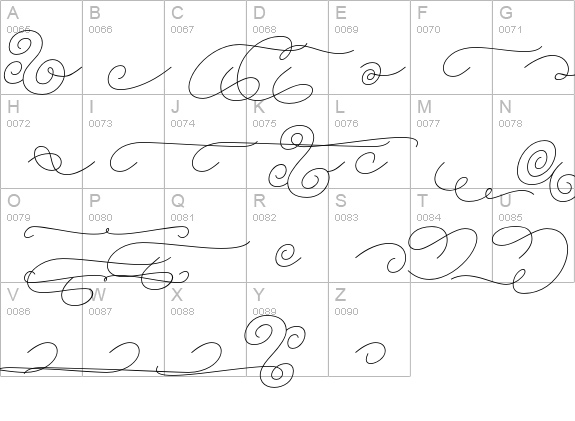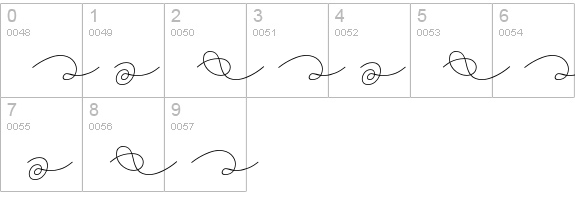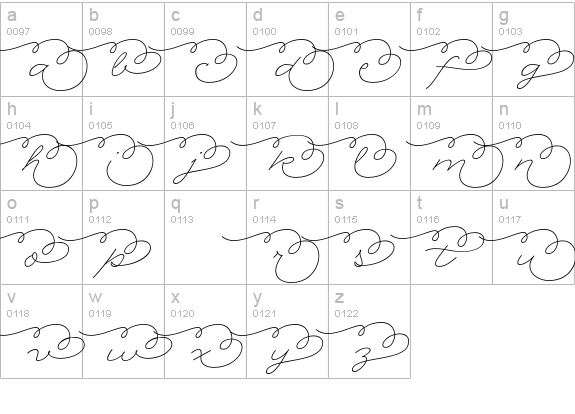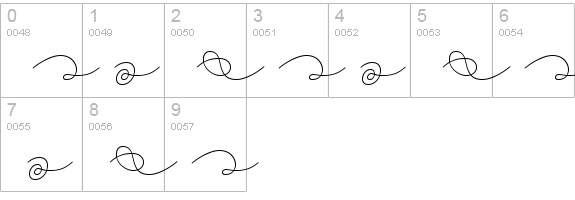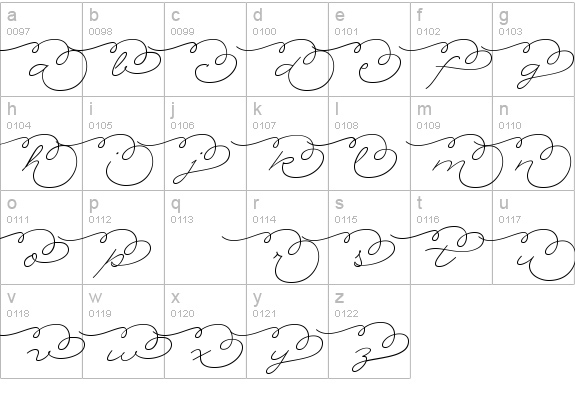
Rolling Pen Extras font is a versatile and creative typeface that adds a touch of playfulness and charm to any design project. With its unique and eye-catching characters, this font is perfect for adding a whimsical and fun element to your creations. The extra glyphs and special characters included in Rolling Pen Extras font give you endless possibilities to customize and enhance your designs. And the best part? Rolling Pen Extras font is available for free download at FontsMarket.com! So go ahead and unleash your creativity with this delightful and expressive typeface. Whether you're working on a greeting card, logo, poster, or any other project, Rolling Pen Extras font is sure to make your designs stand out. Download it now and let your imagination run wild!